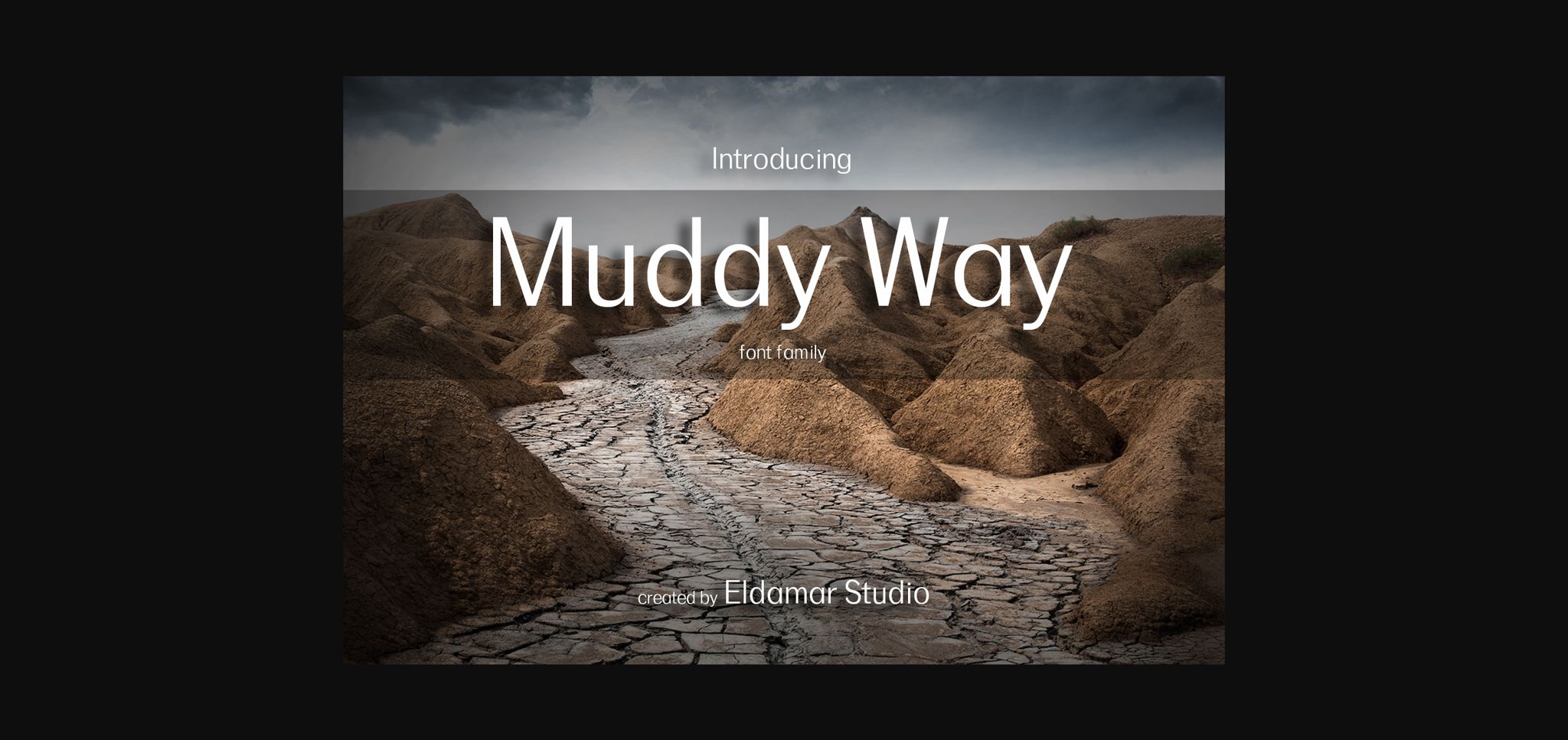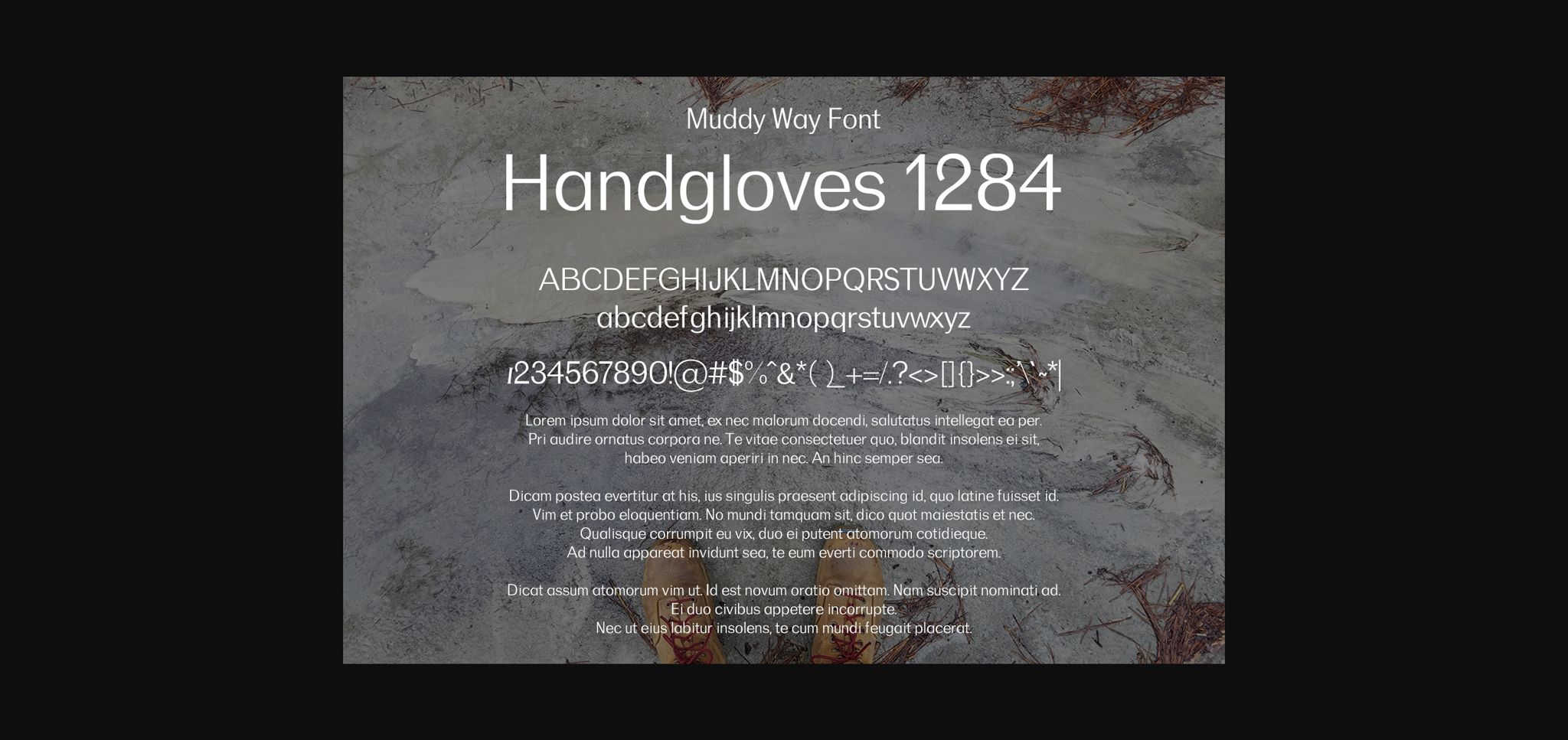
HomeSans Serif FontsMuddy Way Font Sans Serif Fonts Muddy Way Font FacebookXPinterestWhatsApp 1 of 4 ... Muddy Way Font Poster 2... Muddy Way Font Poster 3... Muddy Way Font Poster 4... About Muddy Way Font Muddy Way is a neat and simple sans serif font. It has a clean, thin and smooth vibe and it will be a hit for any design that you want to add it to. DOWNLOAD NOW People also explored Blacky Font Recoletta Font Katalia Font Cemberline Font Jennie Lovely Font Sandhya Font Wednesday Gothic Font Macho Weak Font Beauty Mollies Font 314 0 TagsMuddy Way Font Previous articleNorth Grove FontNext articlePolasky Font LEAVE A REPLY Cancel reply Comment: Please enter your comment! Name:* Please enter your name here Email:* You have entered an incorrect email address! Please enter your email address here Website: Save my name, email, and website in this browser for the next time I comment. Personal Use Free Arabella Script Personal Use Free Read more about this font Bonhomie Personal Use Free Read more about this font BD Pipe Personal Use Free Read more about this font Dakwart Letter Personal Use Free Read more about this font BLOG Using Fonts in Digital Marketing: Tips to Strengthen Your Brand Identity In the realm of digital marketing, every visual element plays a crucial role in shaping a brand's identity, and fonts are no exception. The... Fonts That Capture the Spirit of New York City The 10 Best Handwriting Fonts to Add Personality to Your Designs Modern Sans-Serif Fonts That Brands Love in 2025